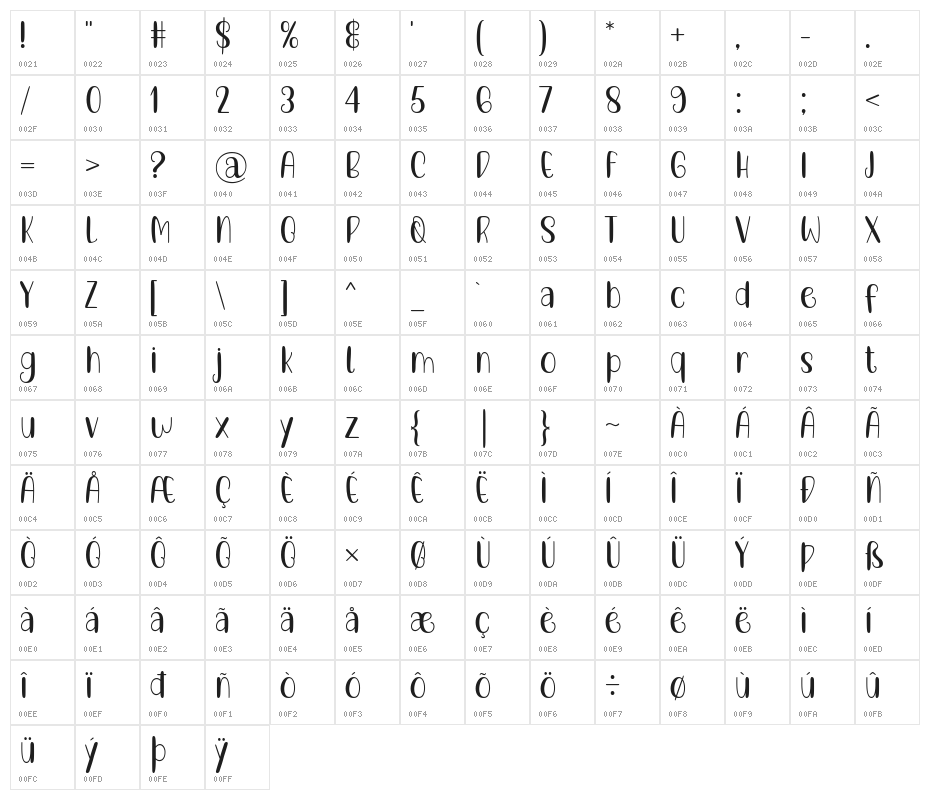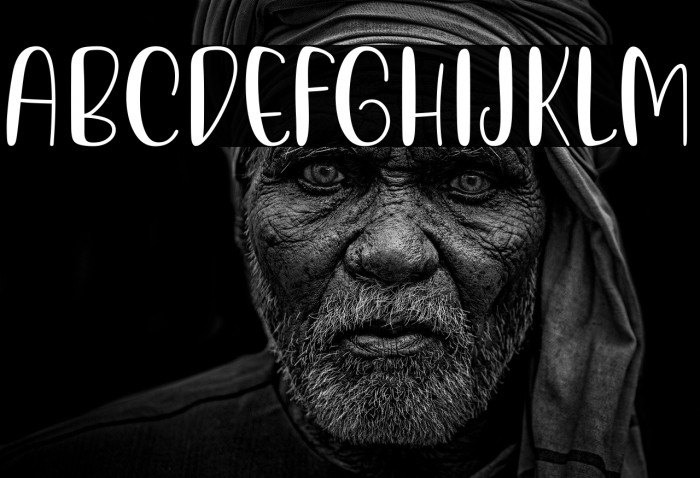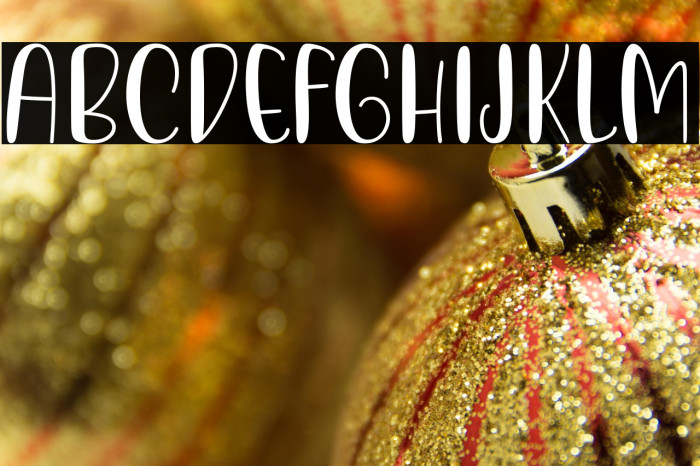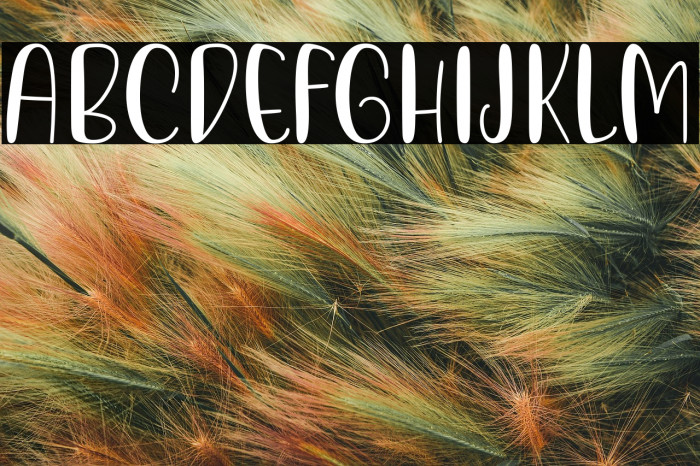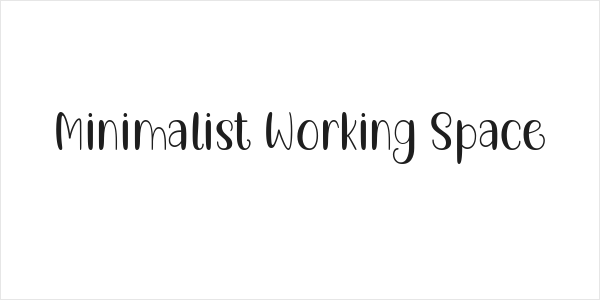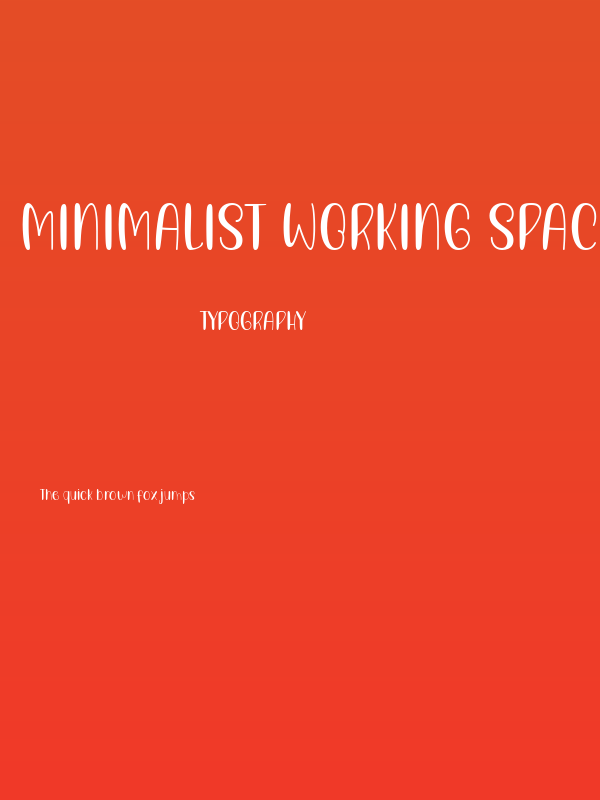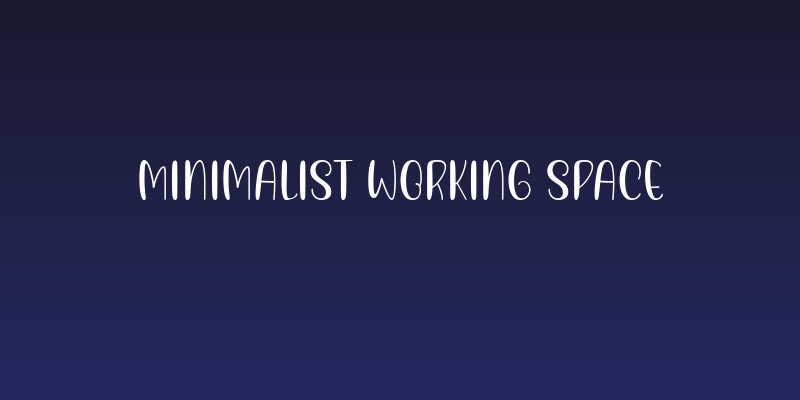
Minimalist Working Space Font
Minimalist Working Space Description
This font features a playful and whimsical style with a handwritten touch. The characters are tall and slightly narrow, with a smooth flow that gives a sense of movement and energy. The uppercase letters are bold and prominent, while the lowercase letters maintain a consistent style with rounded edges and a friendly appearance. The numerals are clear and easy to read, matching the overall playful aesthetic. Special characters are creatively designed, adding to the font's unique charm. This font is perfect for projects that require a personal and approachable feel.